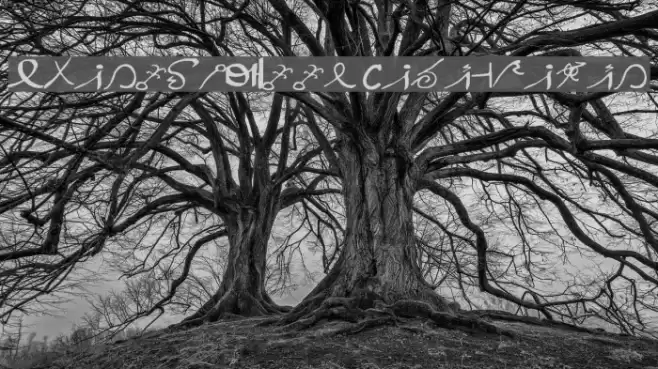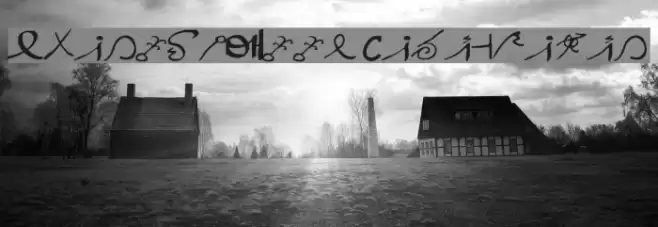
SpaceInKees Caligrafic Font
SpaceInKees Caligrafic Description
This font features a highly decorative and artistic style, reminiscent of calligraphic handwriting with a futuristic twist. The characters are fluid and dynamic, with each letter exhibiting unique curves and loops that suggest motion and creativity. The uppercase and lowercase letters blend seamlessly, maintaining a consistent artistic flair throughout. The numerals and special characters are equally stylized, adding to the font's overall cohesive appearance. This font's intricate design makes it stand out, offering a distinct visual appeal that is both modern and expressive.
A decorative, calligraphic font with a futuristic and artistic style from Uncategorized fonts.
- Proposed Projects: Ideal for creative projects such as logo design, artistic posters, and branding materials that require a unique and expressive touch.
- Overall Style: Modern, Decorative
- Use Case: Logos, Artistic posters, Branding materials